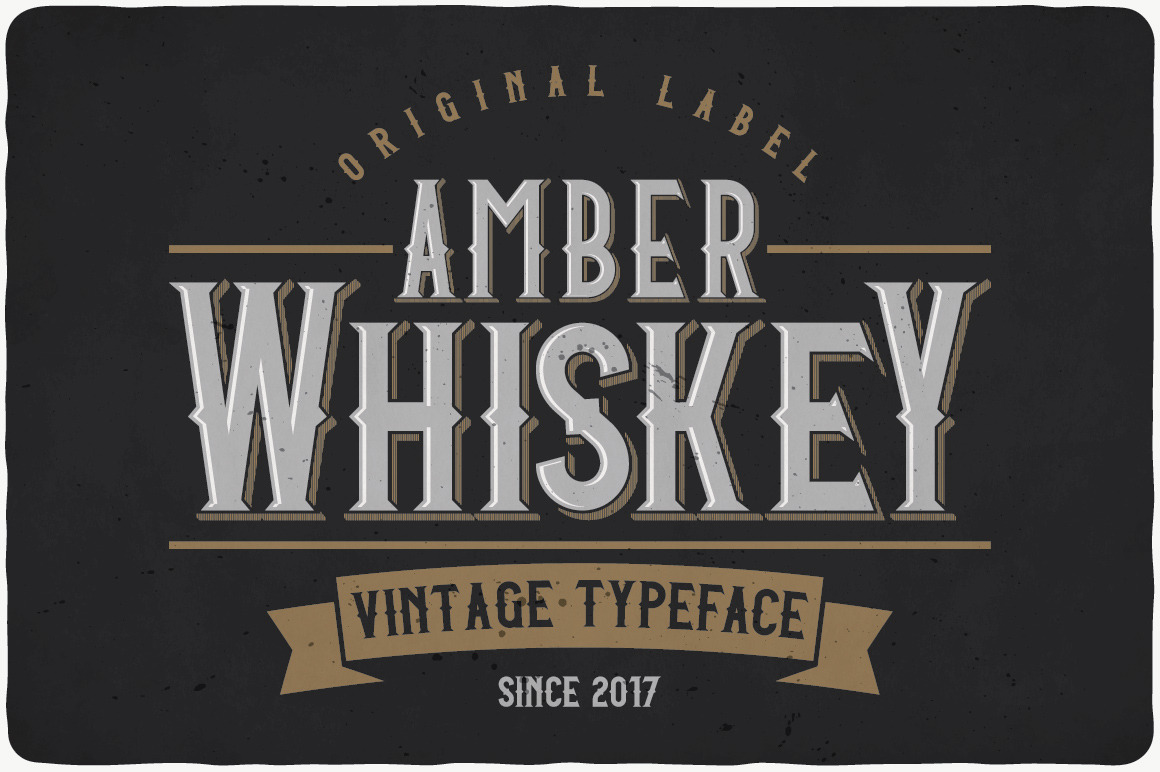
Amber Whiskey Typeface
Introducing a vintage look label typeface named "Amber Whiskey". This typeface includes four styles, for sample look at 3rd preview. Typeface will good viewed on any yours design.